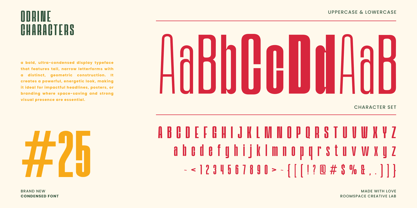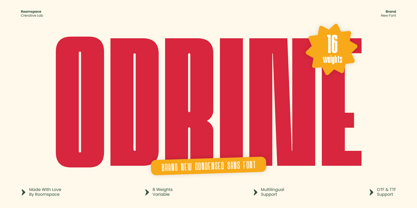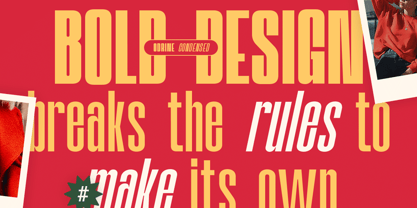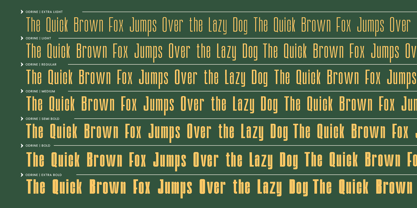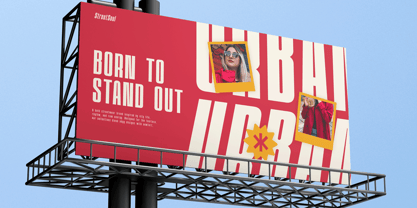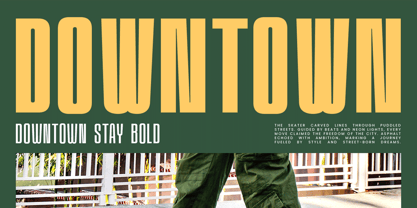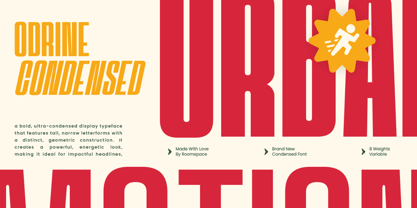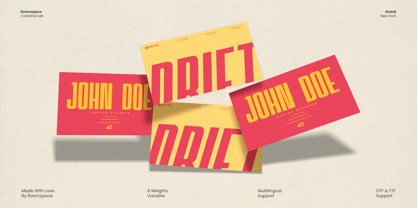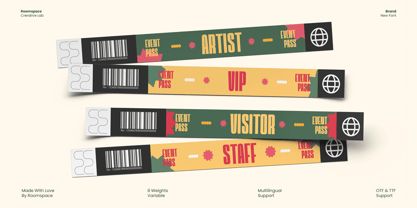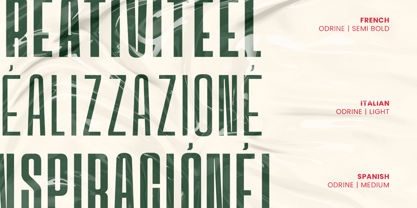
Odrine
by Jafar07
The Odrine Font Family was designed by Bakhrudin Ja'far and published by Jafar07. Odrine contains 16 styles and family package options. More about this family
proportions and tight spacing create a powerful yet sophisticated look for logos, ads, and editorial titles. Featuring 16 weights from thin to black with variable support, Odrine offers flexibility for brand systems and modern design projects. Features : 16 weights + Variable font Uppercase & lowercase Multilingual support Professional kerning & optimized spacing Perfect For : Posters, logos, editorial titles, modern ads, branding systems, corporate designs, and web typography.
Designers: Bakhrudin Ja'far
Foundry: Jafar07